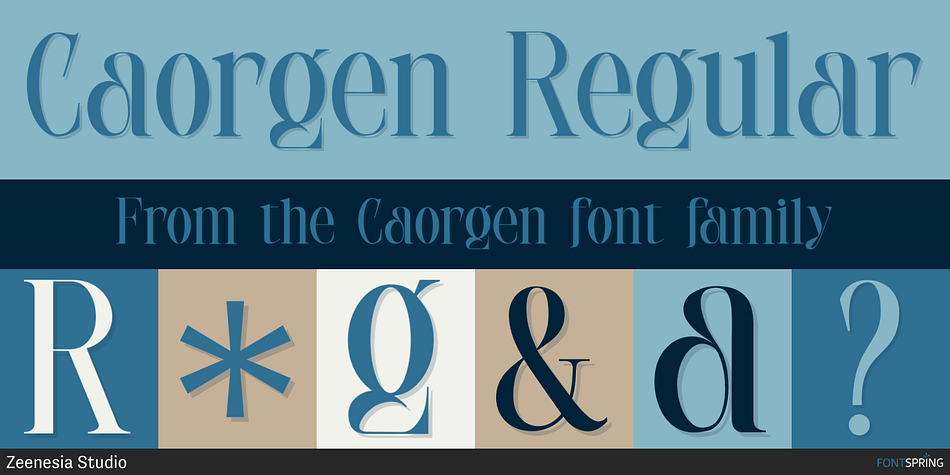
Caorgen Regular
Caorgen is an art deco font family published by Zeenesia Studio.
Caorgen is a stylish and modern serif font. Its unique personality and charm are perfect for creating fashionable designs. This font is PUA encoded which means you can access all the glyphs and ligatures with ease!